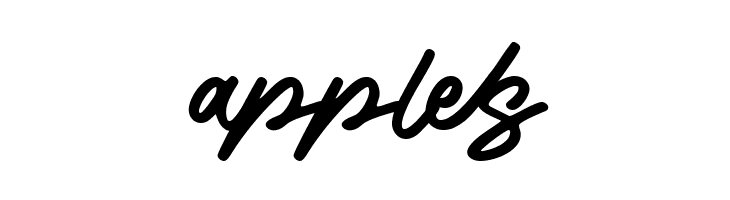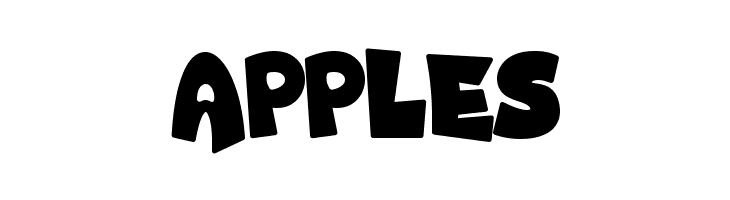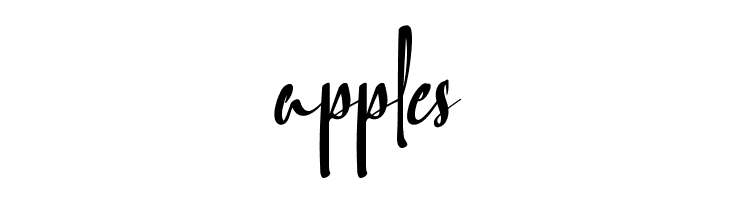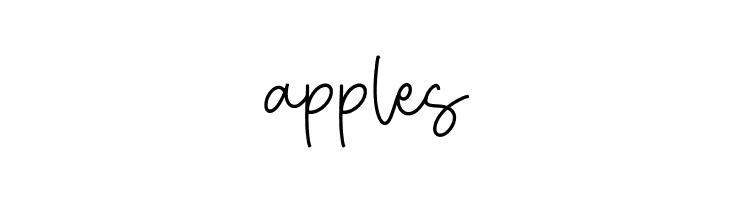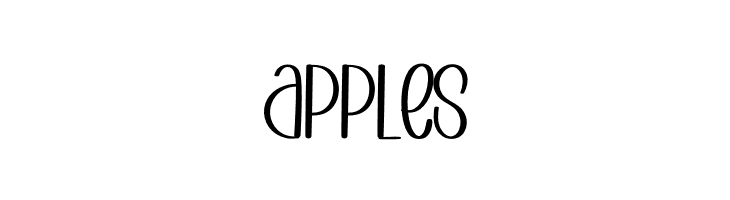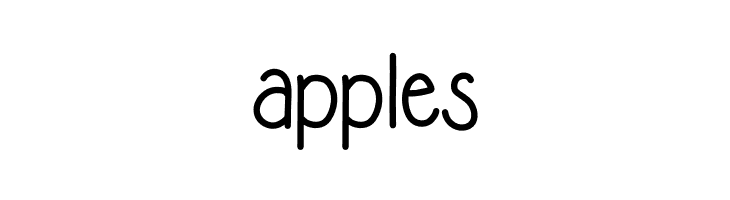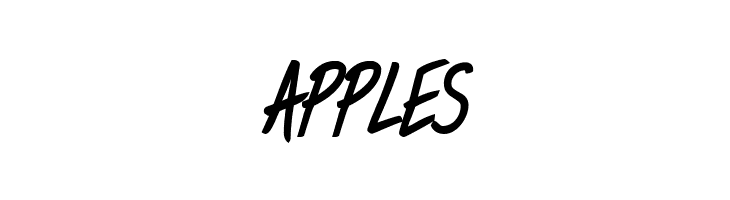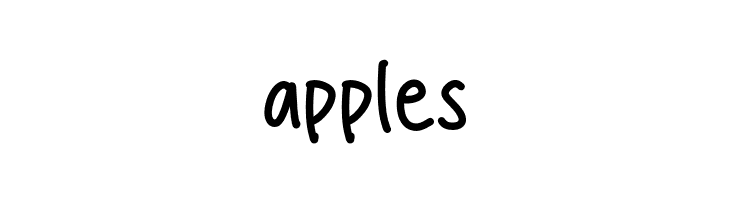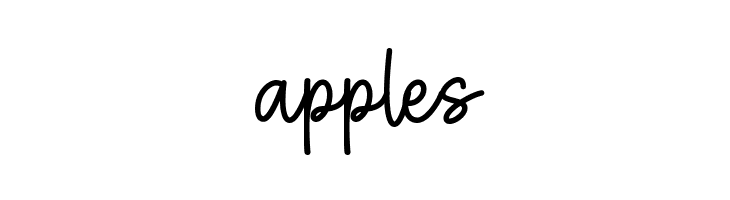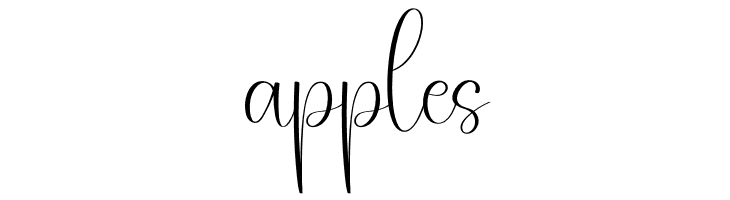
( Fonts by Emma Oosthuizen )
A playful, handwritten font with a casual and friendly style.
A playful, handwritten font with a casual and whimsical style.
( Fonts by Emma )
A bold, playful handwritten font with rounded strokes and a casual vibe.
( Fonts by Moove Studio )
A lively handwritten font with elegant, flowing characters and medium contrast.
( Fonts by Inermedia Studio )
A whimsical and flowing script font with elegant loops and swashes.
( Fonts by Hallie Narsi )
A playful, bold, and rounded font with a hand-drawn aesthetic.